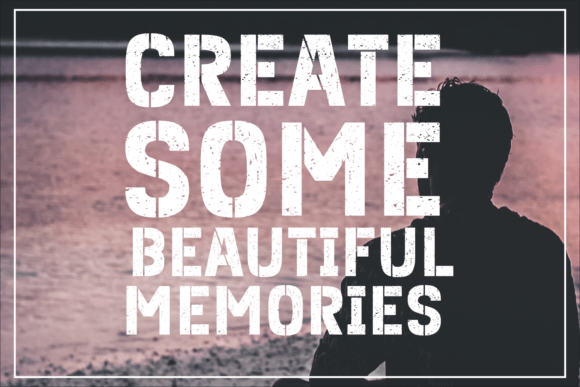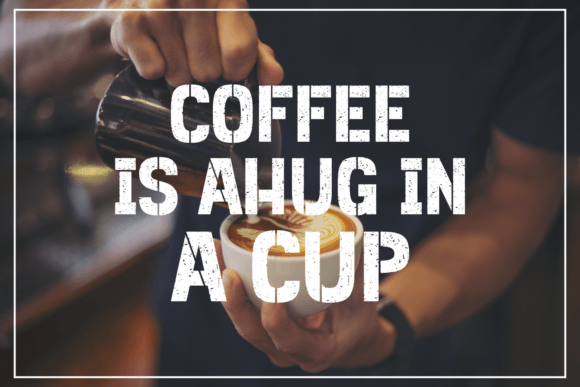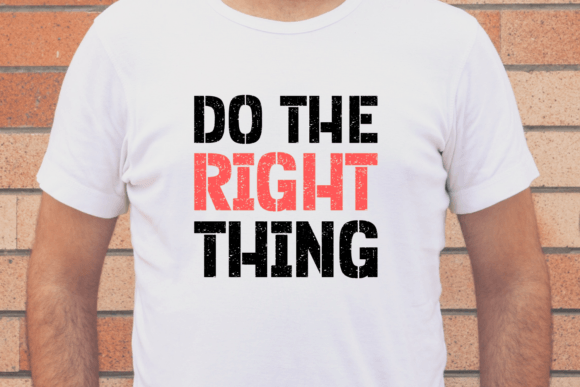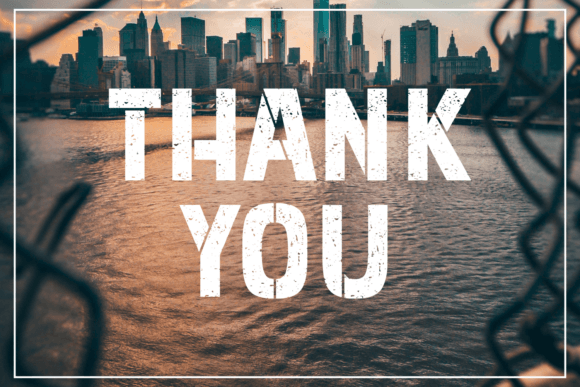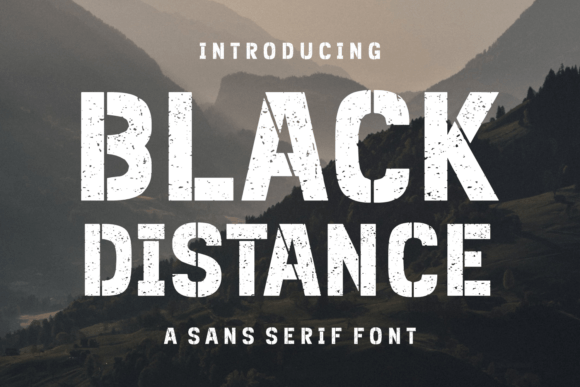
Discover the Elegance of Black Distance Font: A Perfect Blend of Vintage Charm and Bold Precision
In the world of typography, fonts play a crucial role in conveying the tone and personality of a brand, product, or message. For designers and crafters, finding the perfect font that combines elegance, versatility, and functionality can be a daunting task. However, if you’re looking for a font that embodies sophistication, precision, and creativity, look no further than Black Distance Sans Serif Fonts. In this article, we’ll introduce you to this remarkable font family, its distinctive features, and the numerous ways you can utilize it in your designs.
Introducing Black Distance Sans Serif Fonts
Black Distance Sans Serif Fonts is a sublime blend of vintage charm and bold precision, making it an ideal choice for a wide range of design applications. This font family, brought to you by 7ntypes, boasts a unique character that sets it apart from other sans serif fonts. Its elegance is accentuated by distinctive features, including character-laden strokes that breathe life into your work. Whether you’re designing a fashion label, book cover, or branding materials, Black Distance Sans Serif Fonts is the perfect choice.
Distinctive Features and Versatility
One of the standout features of Black Distance Sans Serif Fonts is its versatility. This font family is designed to be adaptable, making it suitable for various formats, including cover designs, logotypes, magazine publications, packaging, quotable art, and finely detailed swashes. The font’s regular variations ensure consistency and compatibility, allowing you to use it across different platforms and designs.
Black Distance Sans Serif Fonts is also perfect for inclusivity, making it an excellent choice for designers who want to create diverse and engaging content. For instance, you can use this font to create a heartfelt Mother’s Day greeting, a seasonal spring campaign, or a clean, minimalist brand identity. The font’s bold precision and vintage charm make it an excellent choice for fashion labels, while its elegance and sophistication make it suitable for high-end branding materials.
Applications and Use Cases
The applications of Black Distance Sans Serif Fonts are endless. Here are some use cases to inspire you:
• Fashion Labels: Use Black Distance Sans Serif Fonts to create stunning fashion labels that exude elegance and sophistication.
• Book Covers: This font family is perfect for designing authentically crafted book covers that capture the essence of your story.
• Branding Materials: From business cards to billboards, Black Distance Sans Serif Fonts is an excellent choice for creating cohesive and recognizable branding materials.
• T-Shirt Designs: The font’s bold precision and vintage charm make it a striking statement on T-shirt designs, adding a touch of sophistication to your apparel.
• Magazine Publications: Use Black Distance Sans Serif Fonts to create visually appealing magazine publications that engage your readers.
Why Choose Black Distance Sans Serif Fonts?
So, why should you choose Black Distance Sans Serif Fonts for your next design project? Here are a few compelling reasons:
• Unique Character: This font family boasts a unique character that sets it apart from other sans serif fonts.
• Versatility: Black Distance Sans Serif Fonts is adaptable and suitable for various formats and design applications.
• Elegance and Sophistication: The font’s elegance and sophistication make it perfect for high-end branding materials and fashion labels.
• Consistency and Compatibility: The font’s regular variations ensure consistency and compatibility across different platforms and designs.
In conclusion, Black Distance Sans Serif Fonts is a remarkable font family that offers a perfect blend of vintage charm and bold precision. Its distinctive features, versatility, and elegance make it an ideal choice for designers and crafters looking to create stunning designs. Whether you’re designing a fashion label, book cover, or branding materials, Black Distance Sans Serif Fonts is the perfect choice. Experience the nuances of this font family, where beauty meets functionality, and elevate your designs to the next level.